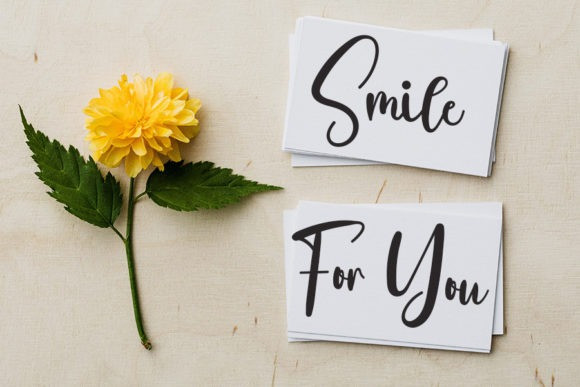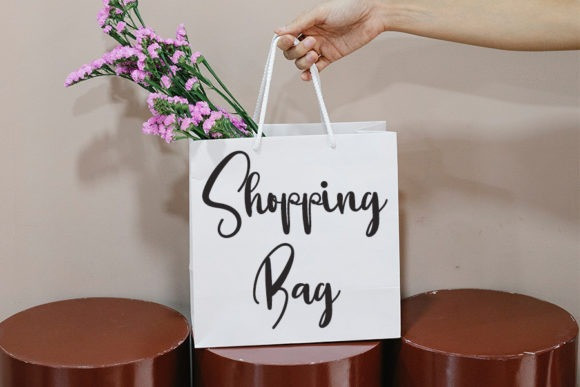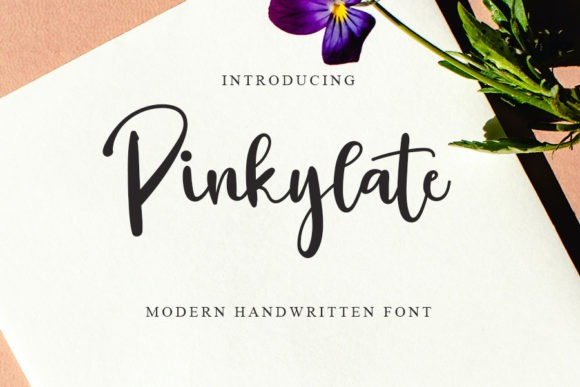
Pinkylate Font
Pinkylate Script Font is a chic and trendy handwritten font. Whether you’re looking for fonts for Instagram or calligraphy scripts for DIY projects, this font will turn any creative idea into a true piece of art!